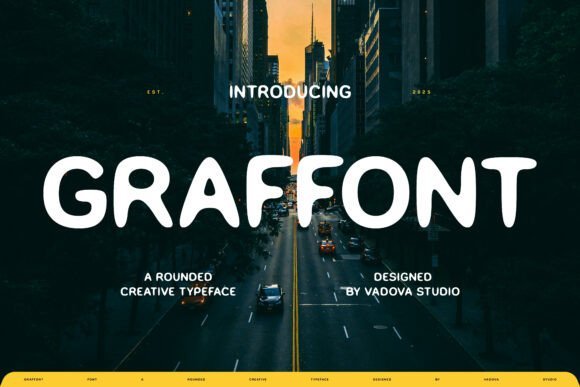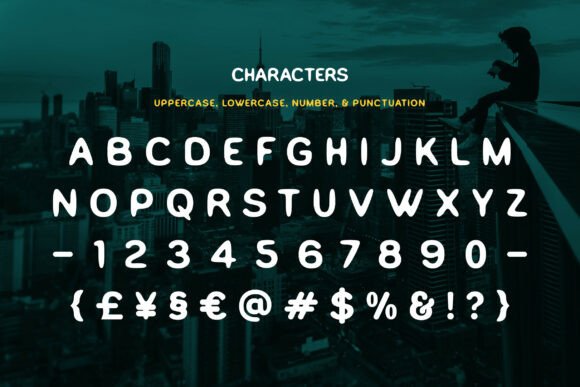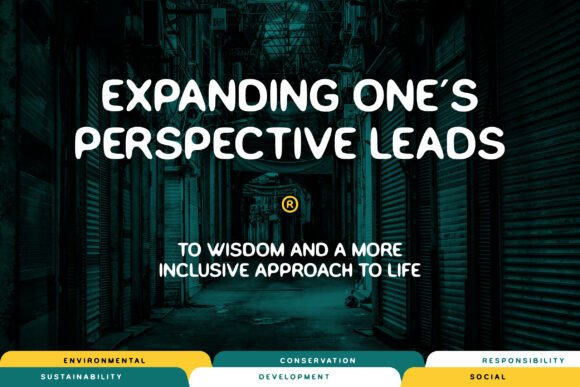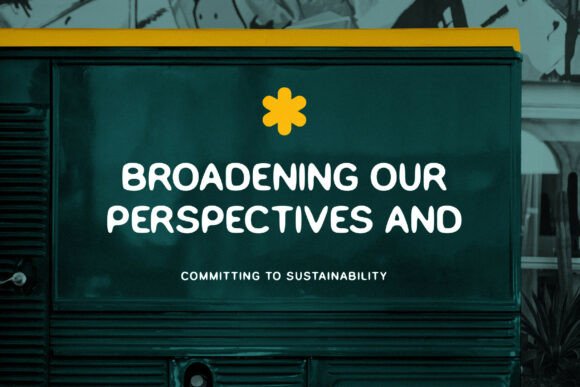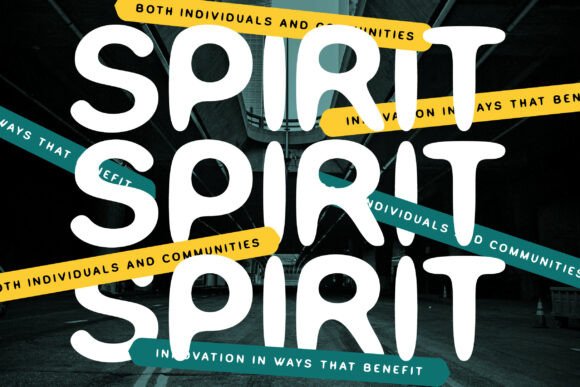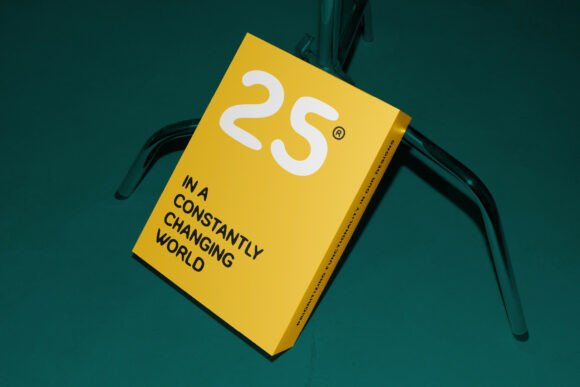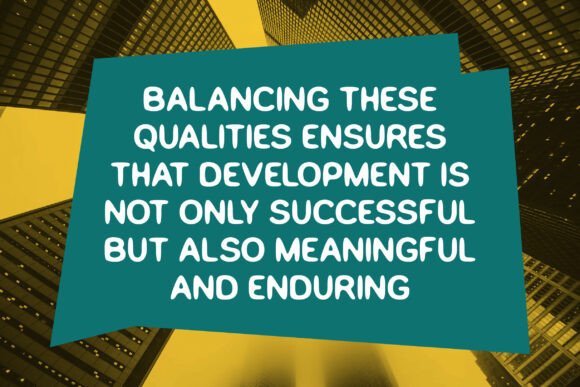
A New Rhythm for the City Streets
As a designer, you’ve probably found yourself in a creative block, staring at a blank canvas, waiting for that spark to ignite your next project. It’s a familiar feeling, but what if that spark came in the form of a fresh font that captures the essence of the urban jungle? That’s exactly what the Graffont Font does – it distills the rhythmic energy of the city into a rounded, creative typeface that’s equal parts friendly and street-smart.
Whether you’re working on a streetwear branding campaign or a modern poster design, Graffont Font offers a unique balance between a casual “hand-drawn” feel and a professional display font. This versatility makes it an invaluable asset for designers looking to add a touch of urban flair to their work.
With Graffont Font, you’ll find a trusted companion that helps you express the dynamism and creativity of the city, every time you hit publish.
Graffont Font Key Features
- Unique Characteristics: Graffont Font features a distinctive, hand-drawn design with subtle texture and imperfections, giving it a unique and artistic feel.
- Kerning and Ligatures: Graffont Font includes advanced kerning and ligature tables, ensuring smooth and even text display, even at small font sizes.
Graffont Font Review
I recently had the chance to work with the Graffont font, and I have to say it’s been an interesting experience. Overall, I’d give it a solid 3.5 out of 5 stars.
- Unique and quirky design: Graffont has a distinct, hand-drawn feel that sets it apart from more traditional fonts.
- Excellent for creative projects: This font is perfect for designers who want to add a touch of personality to their work, whether it’s a logo, poster, or social media graphic.
- Good legibility: Despite its playful design, Graffont is still easy to read, making it a great choice for body text.
- Not suitable for formal or corporate projects: Graffont’s quirky design may not be the best fit for more traditional or conservative brands.
- Limited language support: Graffont may not have the same level of language support as more popular fonts, which could be a concern for designers working on multilingual projects.
- May not be suitable for small text: While Graffont is readable, it may not be the best choice for small text sizes, where its unique design elements can become lost.
Overall, I think Graffont is a great choice for designers who want to add a bit of personality to their work. However, it may not be the best fit for every project, and designers should carefully consider its limitations before making a decision.
1. Use Graffont Font sparingly to avoid overwhelming your design.
2. Pair Graffont Font with other fonts to create a visually appealing combination.
3. Experiment with different font sizes and colors to achieve the desired effect.
4. Use Graffont Font for headings and titles to create a clear hierarchy.
Can I customize Graffont Font to fit my specific design needs?
Yes, Graffont Font is designed to be highly customizable. As a variable font, it allows you to adjust parameters such as weight, width, and x-height to create a wide range of styles and variations. You can also use font software to create custom instances of Graffont Font with specific settings and characteristics.